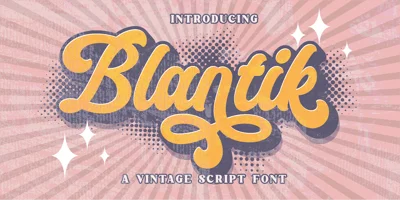
Blantik Calligprahy Font
Blantik Calligraphy Font
This elegant calligraphy font is perfect for luxury wedding invitations, premium brand logos, high-end certificate designs, sophisticated greeting cards, upscale restaurant menus, boutique packaging, artisanal product labels, and refined design projects that require handcrafted elegance.
Blantik Calligraphy Font is exciting because it captures the artistry of master penmanship with its flowing strokes and graceful flourishes that seem touched by centuries of calligraphic tradition. The font brings timeless craftsmanship and artistic beauty to every application.
The Blantik Calligraphy Font family includes regular and ornamental versions with decorative swashes, elegant ligatures, and artistic alternates, providing designers with comprehensive tools for creating masterful hand-lettered typography.
Seeking handcrafted luxury for your designs? Blantik Calligraphy Font offers designers exquisite letterforms that flow with artistic precision and elegant sophistication. This masterful typeface combines traditional calligraphy with modern functionality, making it ideal for luxury brands, wedding planners, and premium service providers. Whether you're designing exclusive invitations, artisanal product packaging, or high-end brand identities, this font delivers aristocratic appeal. The beautifully crafted characters feature flowing curves while maintaining excellent readability across applications. Perfect for businesses in luxury services, wedding planning, artisanal goods, and premium hospitality that celebrate craftsmanship and tradition. The font's calligraphic construction creates memorable brand recognition that resonates with refined clientele worldwide. Each letter showcases deliberate artistry that mirrors the timeless appeal of master penmanship. Download today and enhance your creative projects with this premium calligraphy font that transforms ordinary text into extraordinary expressions of artistic beauty and Blantik Calligraphy Font elegance.